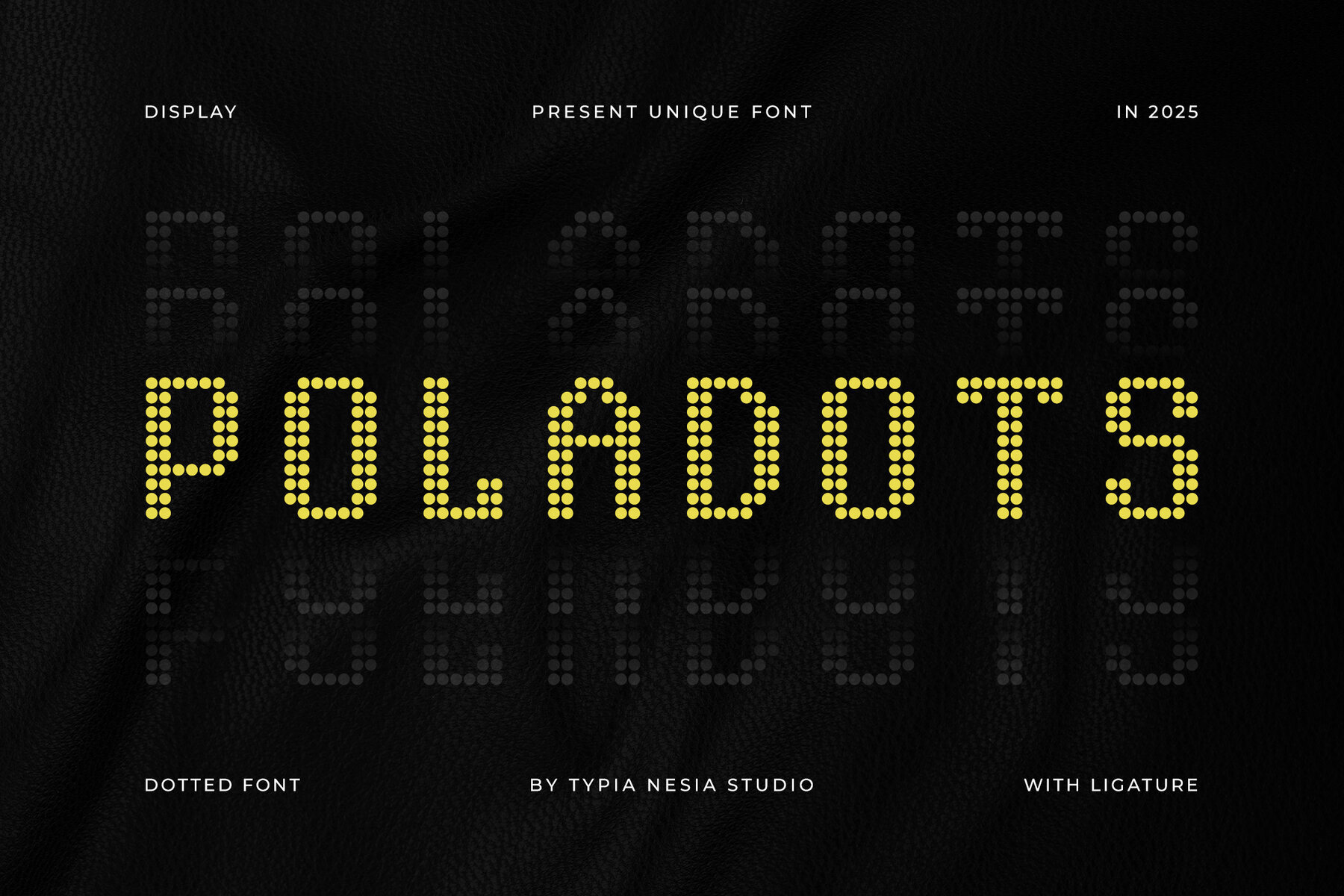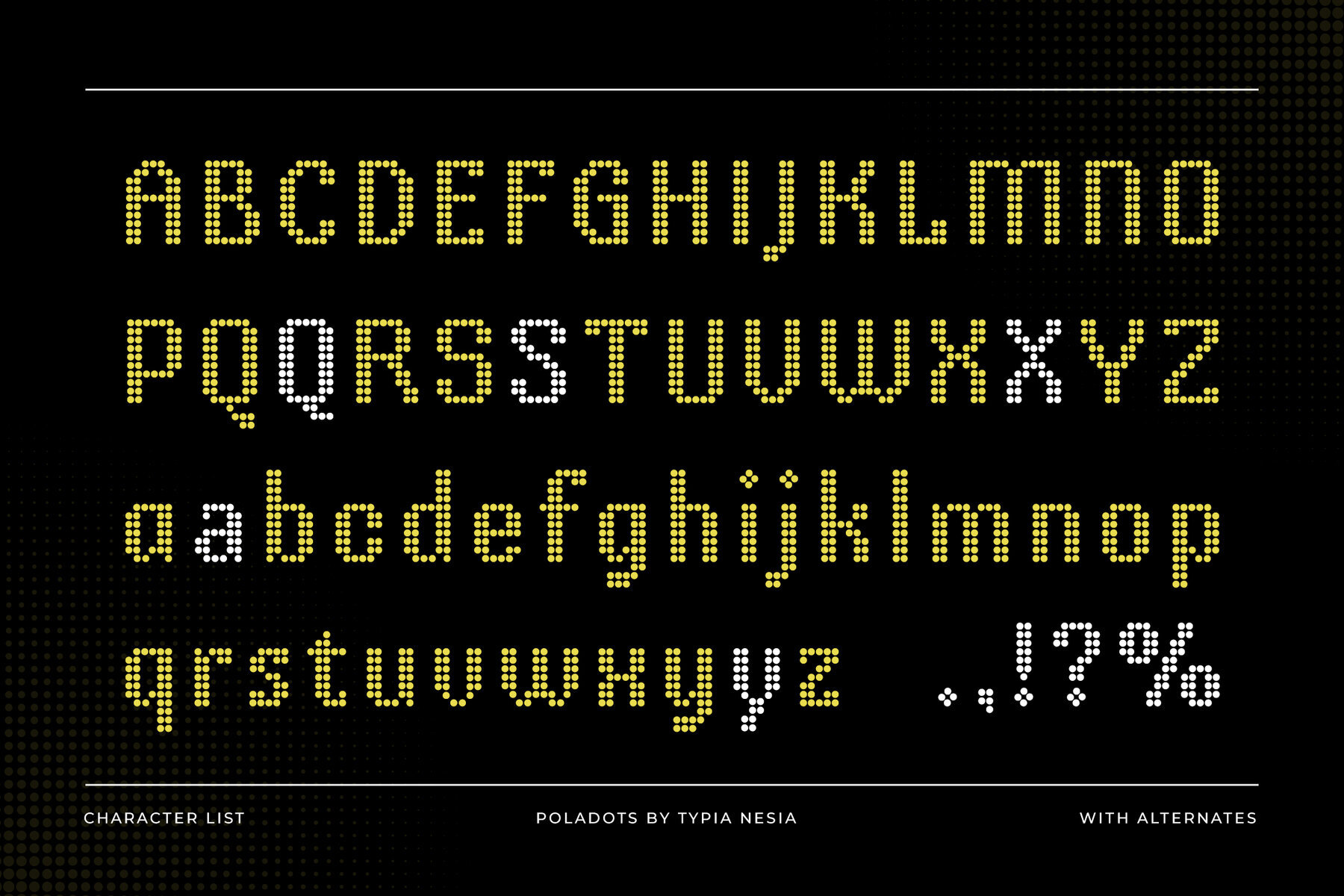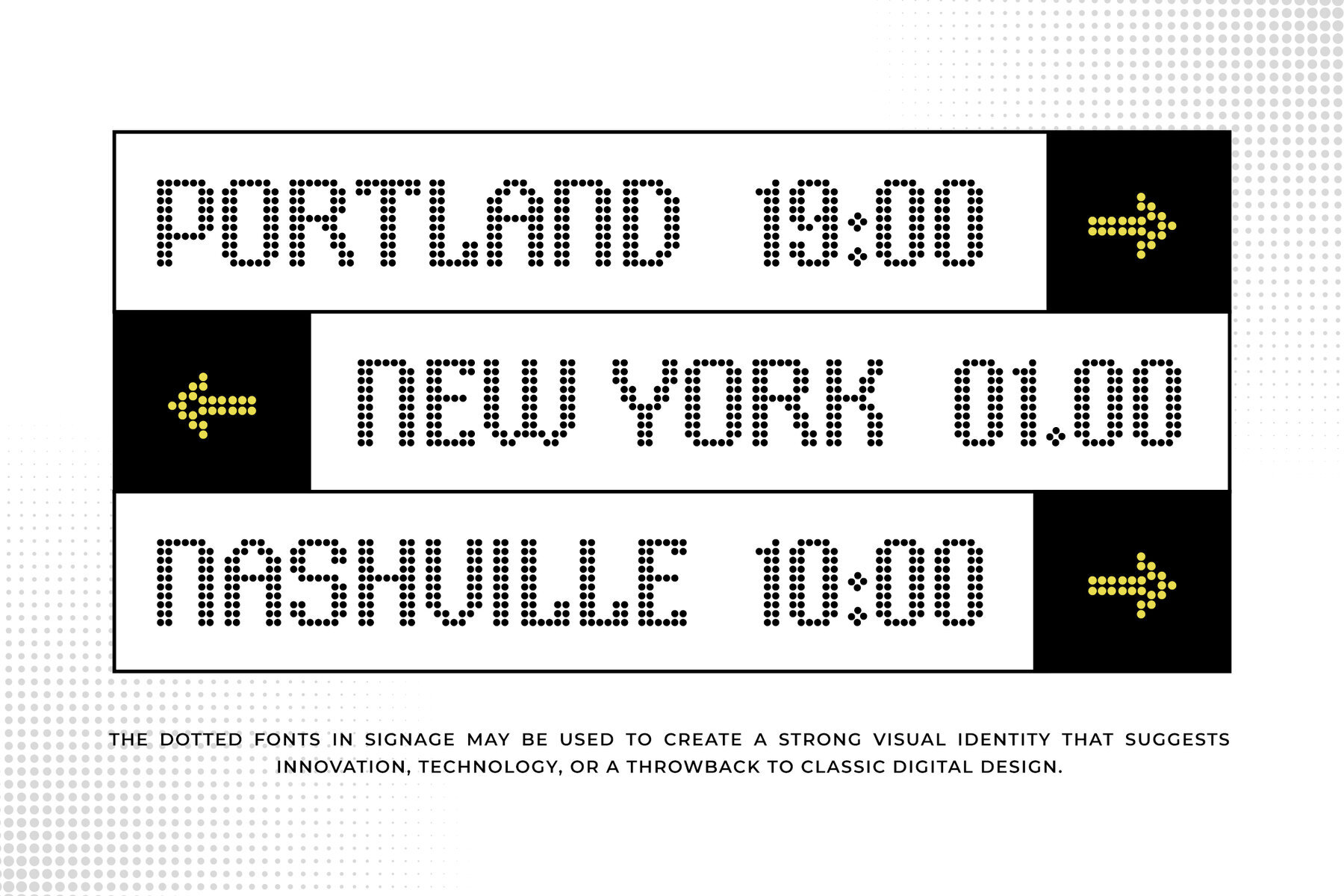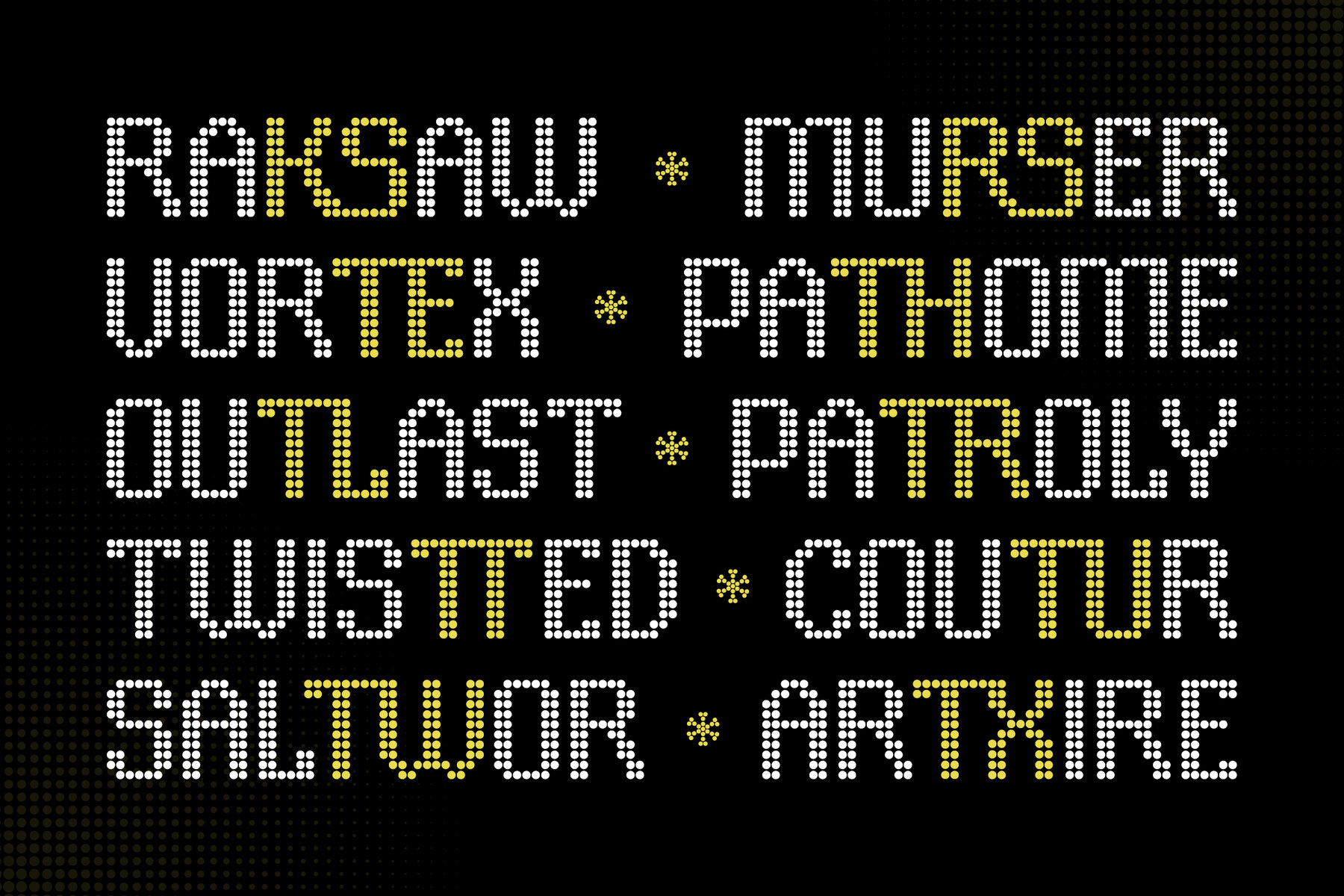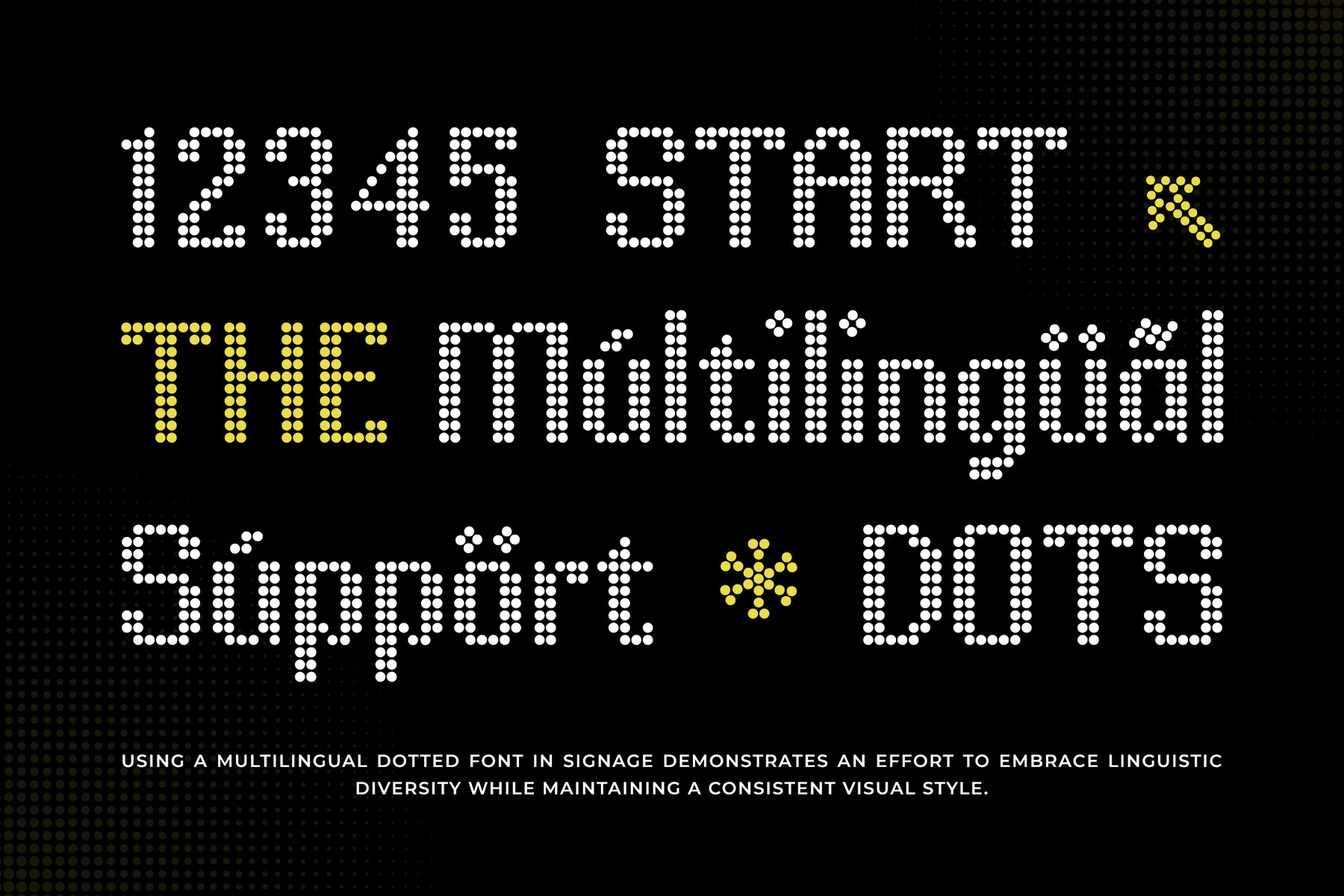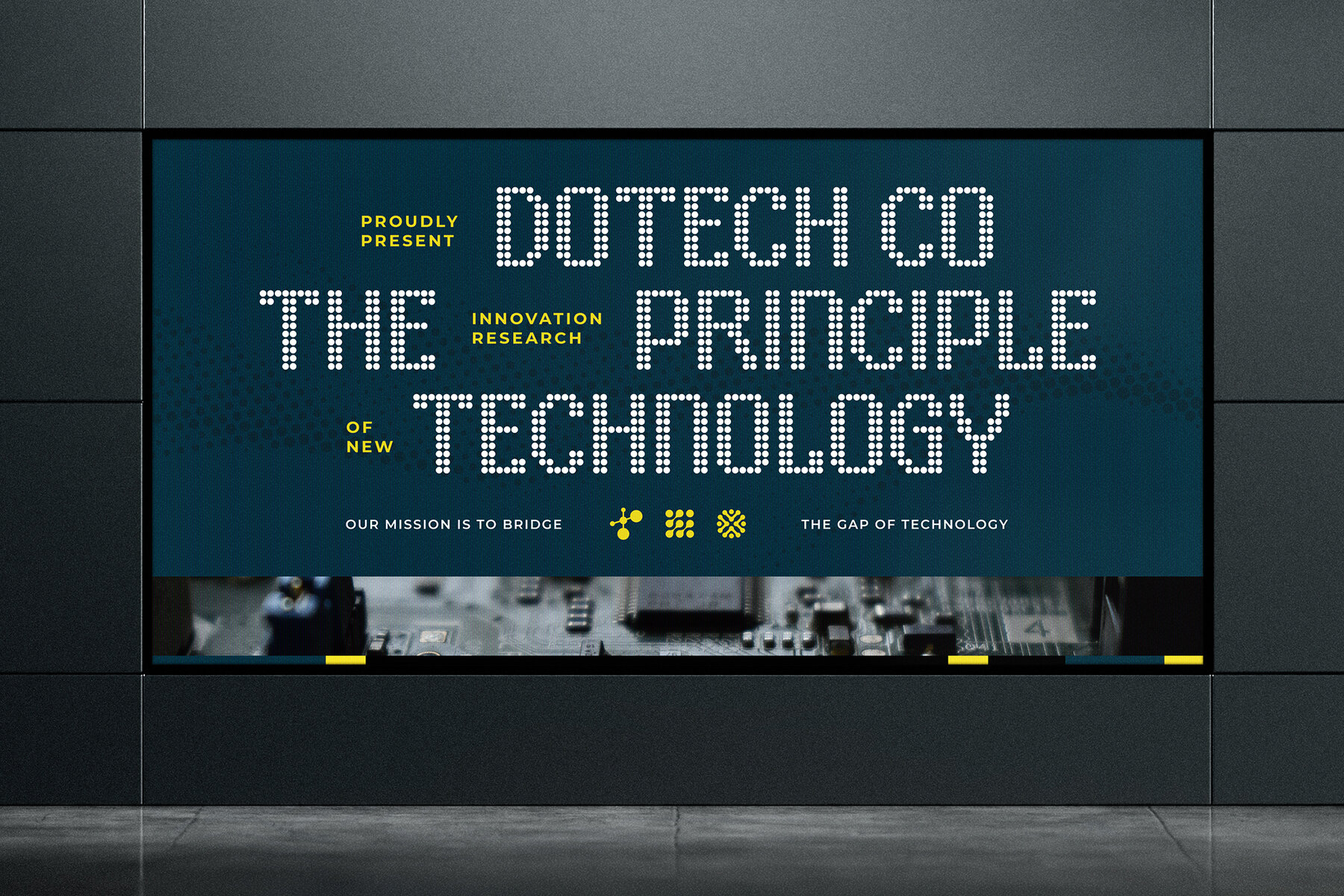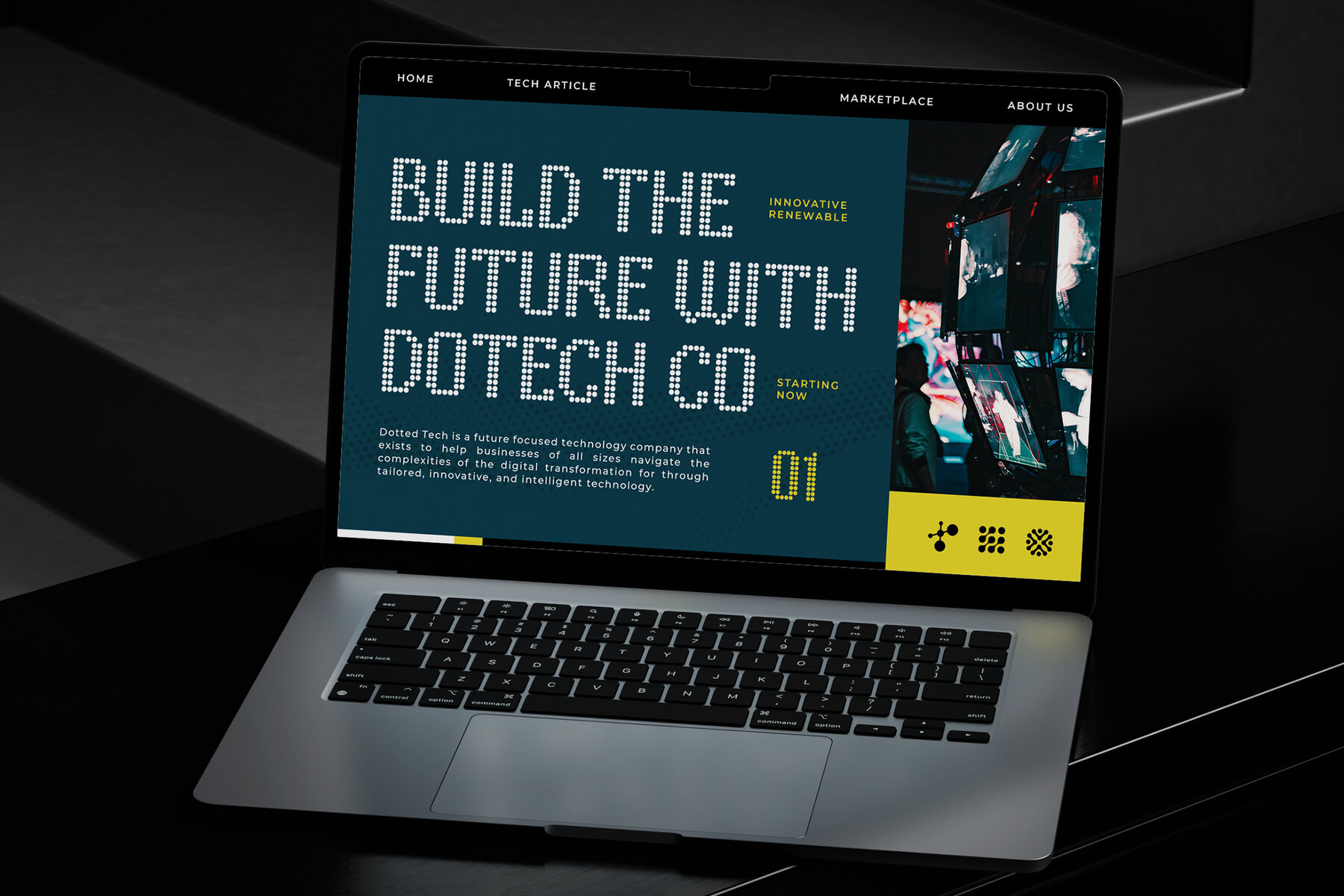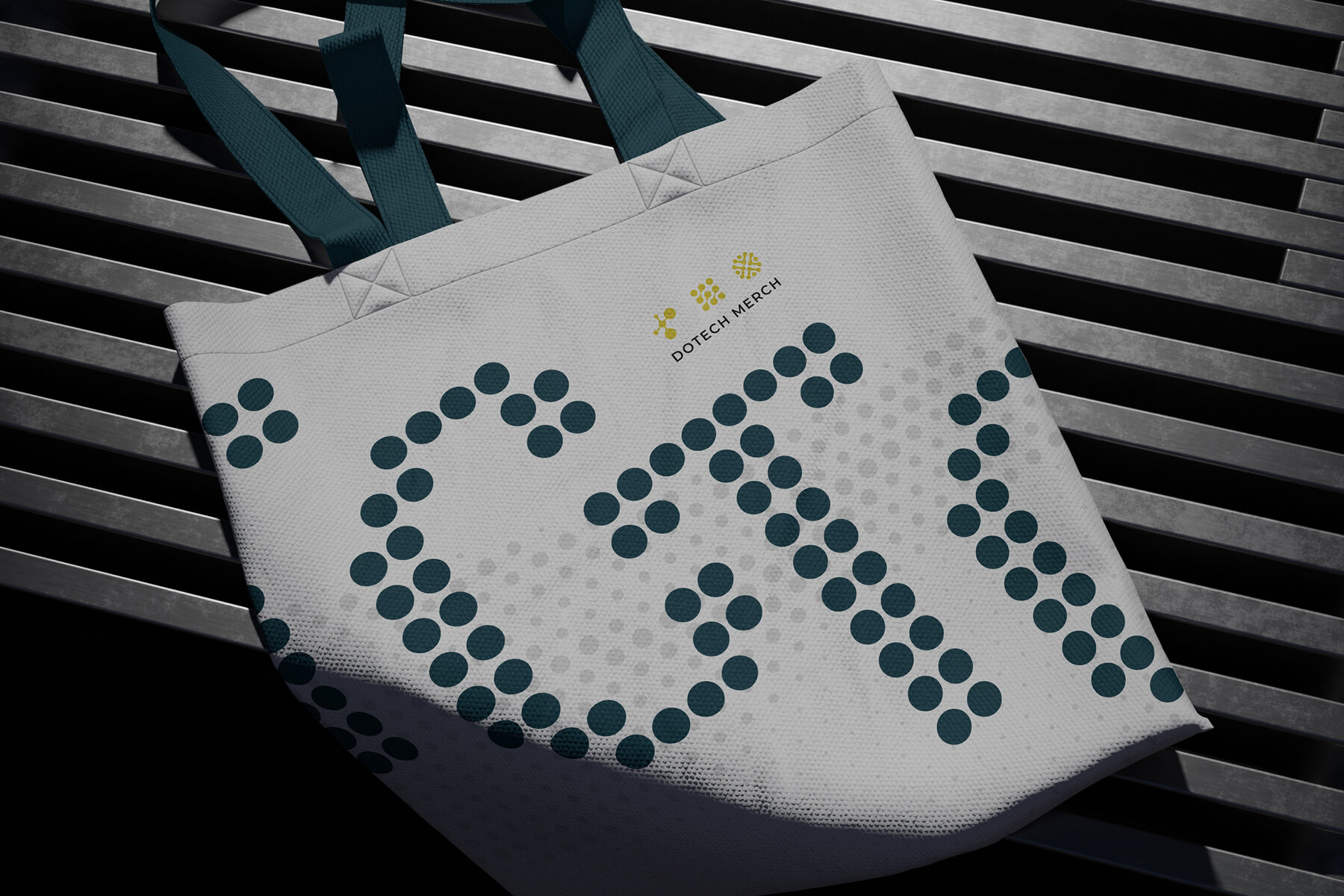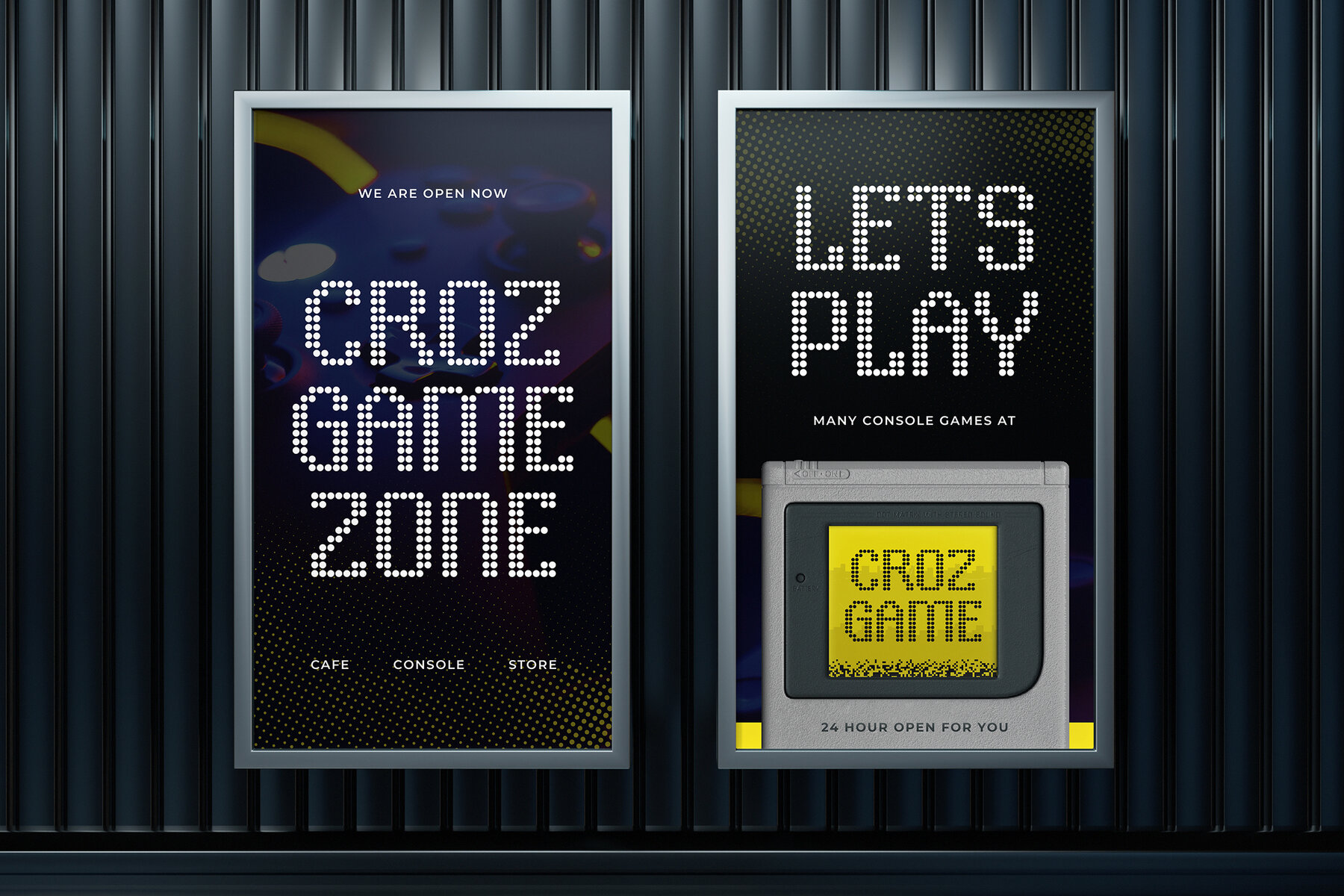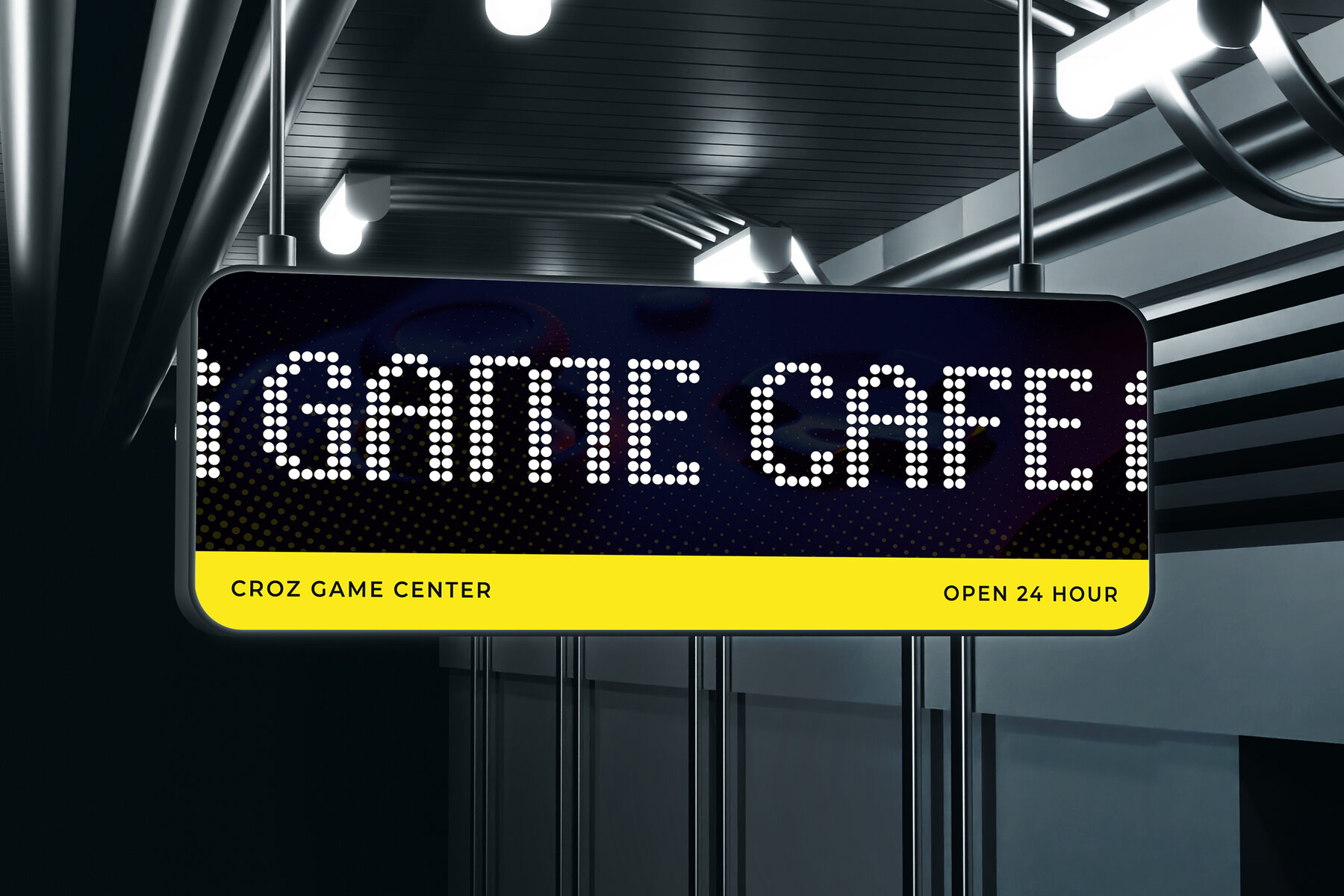
Poladots Font
Poladots Regular
Poladots showcases a distinctive blend of retro and futurism through its modern dotted display style. Each character is crafted with precision, forming clean and uniform dots. This pixelated aesthetic brings to life a sophisticated dot matrix effect, making it a compelling choice for digital projects, tech branding, and bold visual statements.Poladots: A Modern Dotted Typeface for Futuristic Designs
Poladots adds an unforgettable, original style to your visuals, ensuring they leave a lasting impression.